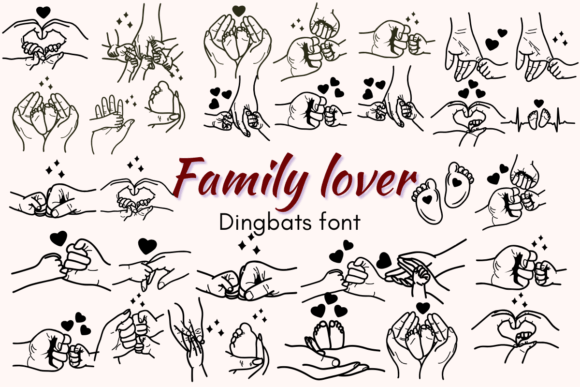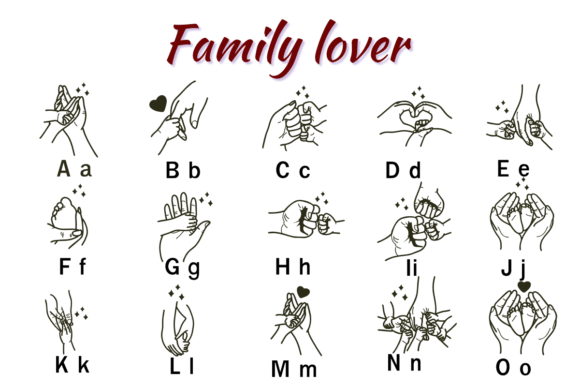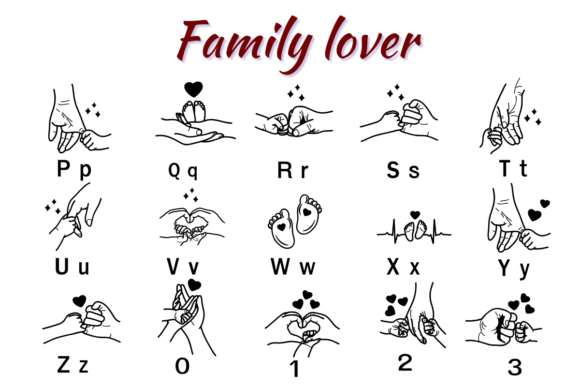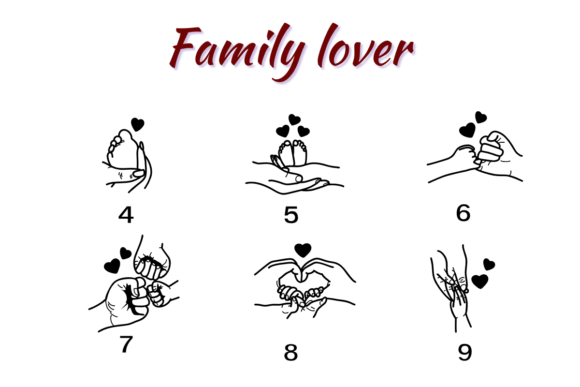
Family Lover Font
About the Family Lover Font
Unleash your creativity with Family Lover Font, a versatile font perfect for a wide range of applications. Family Lover is a cute dingbat font with a lovely theme with a sketch style. This font can enhance your creative projects such as wedding invitations, DIY, crafts, decorations, logos, and many other creative ideas.
Family Lover’s sketched style and charming dingbats make it ideal for projects requiring a hand-drawn, whimsical feel. It excels in branding for small businesses with a friendly, approachable image, particularly those focused on crafts, children’s products, or wedding-related services. Use it effectively in logos, short headlines, and packaging design where its unique character can shine. Avoid using it for large blocks of text or body copy; its informal nature is unsuitable for long reads or UI elements.
Pairing Family Lover with a clean sans-serif like Open Sans for body text creates a pleasing contrast. For a more playful approach, consider pairing it with a rounded geometric sans-serif such as Lato. If a more sophisticated feel is desired, a delicate serif like Merriweather can add a touch of elegance without overwhelming the font’s charm.
The overall personality of Family Lover is undeniably friendly and approachable, conveying warmth and a handmade aesthetic. Its lighthearted style is best suited for brands that value authenticity and a personal connection with their audience.
Family Lover Font Usage Examples
Family Lover Font Example